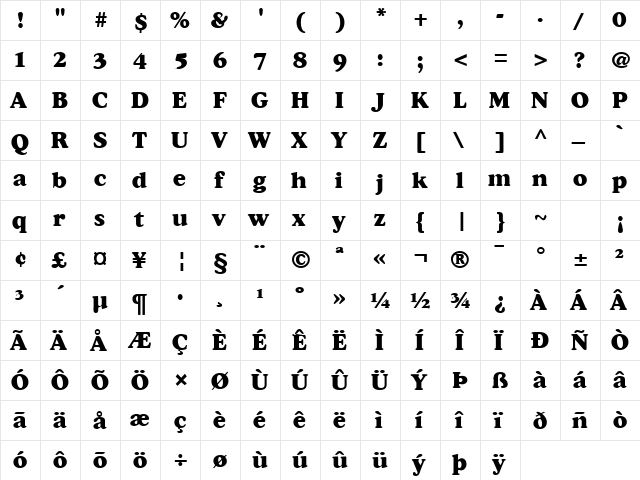
FZ ROMAN 34 Normal
Design Context for FZ ROMAN 34 Typeface
FZ ROMAN 34 offers clean, dependable letterforms without strong stylistic allegiance, making it a practical choice for designers who need flexibility.
Pro Tip: Use FZ ROMAN 34 in both headline and body roles to test its range before committing to a single application.